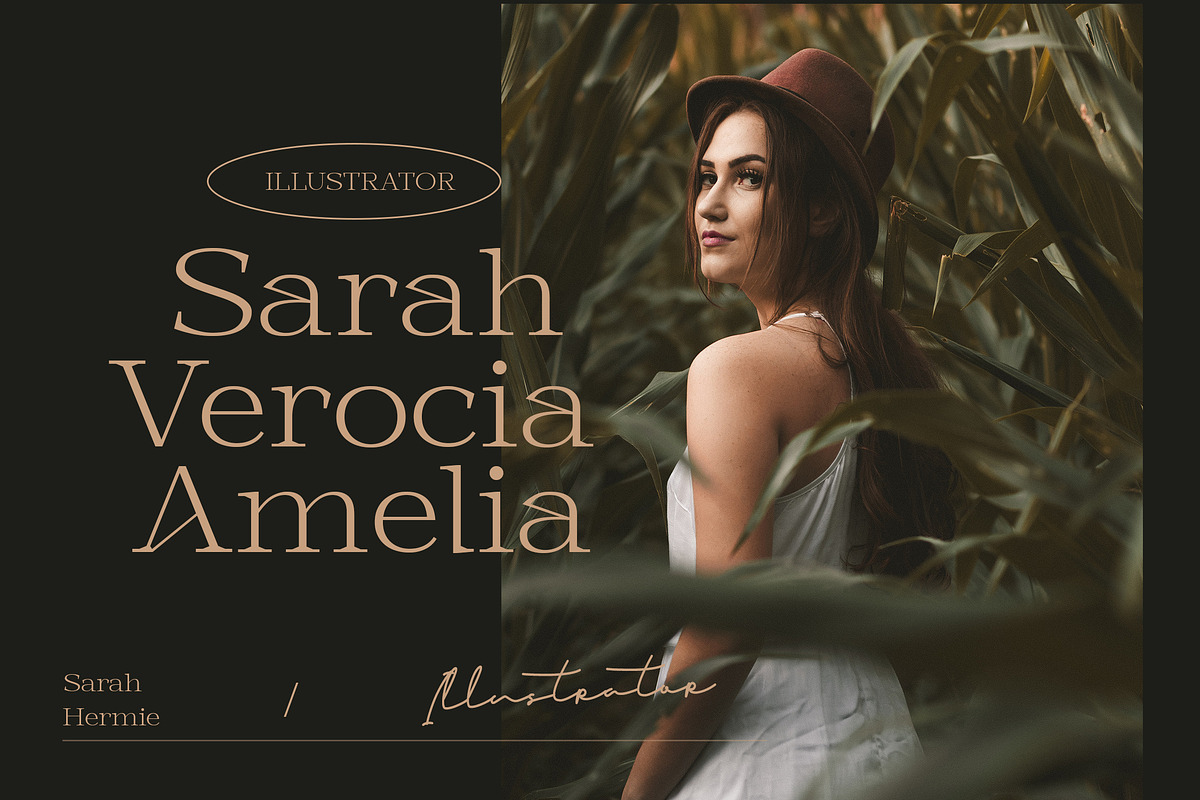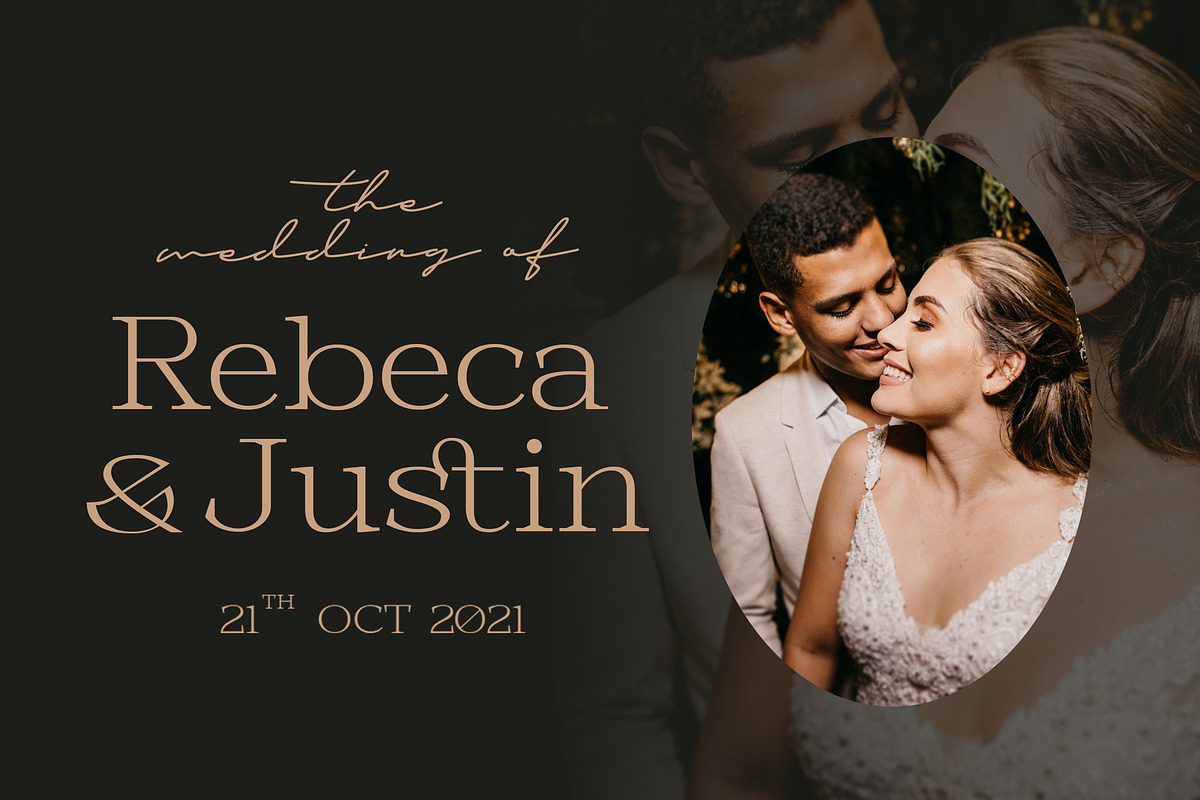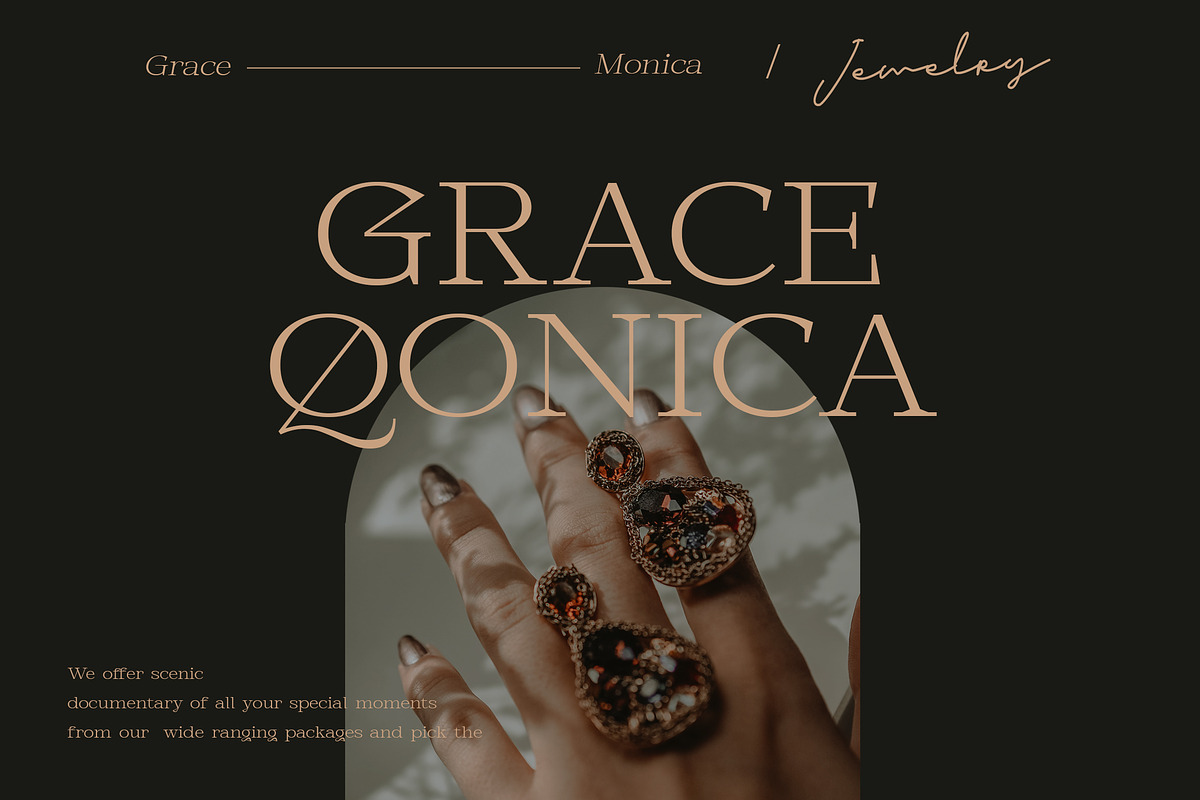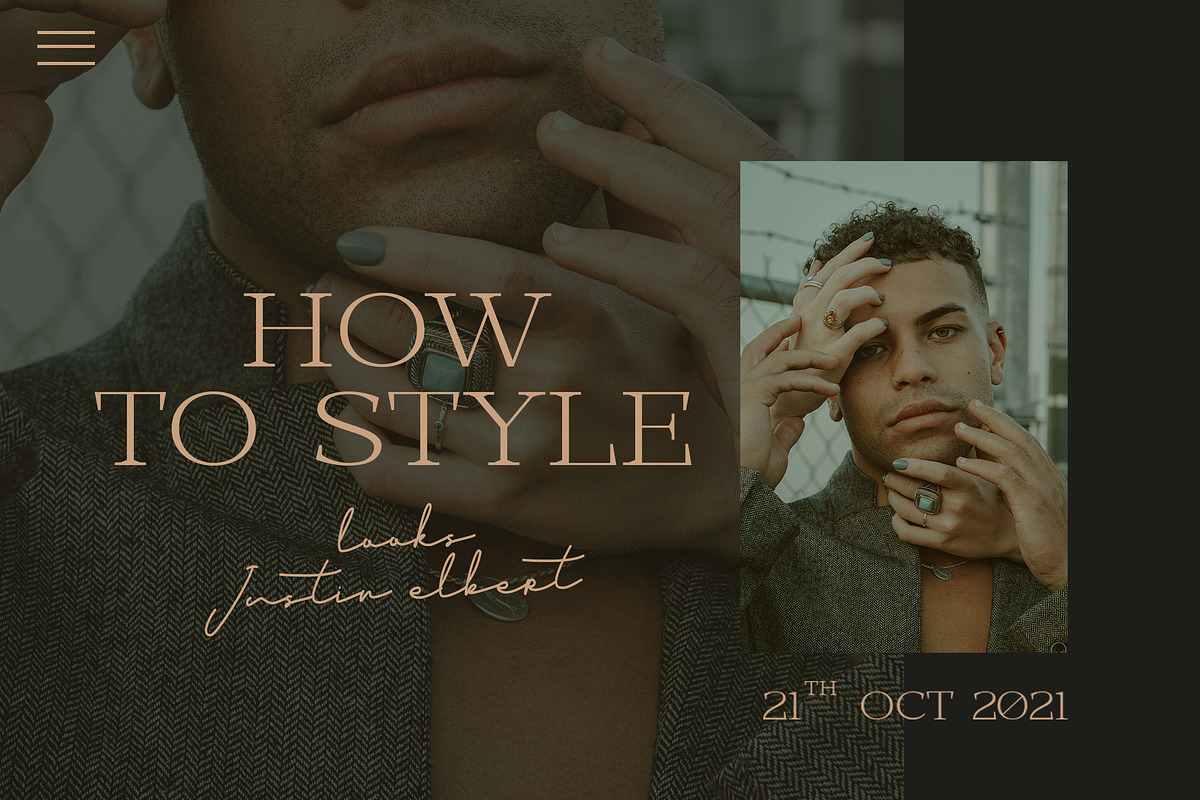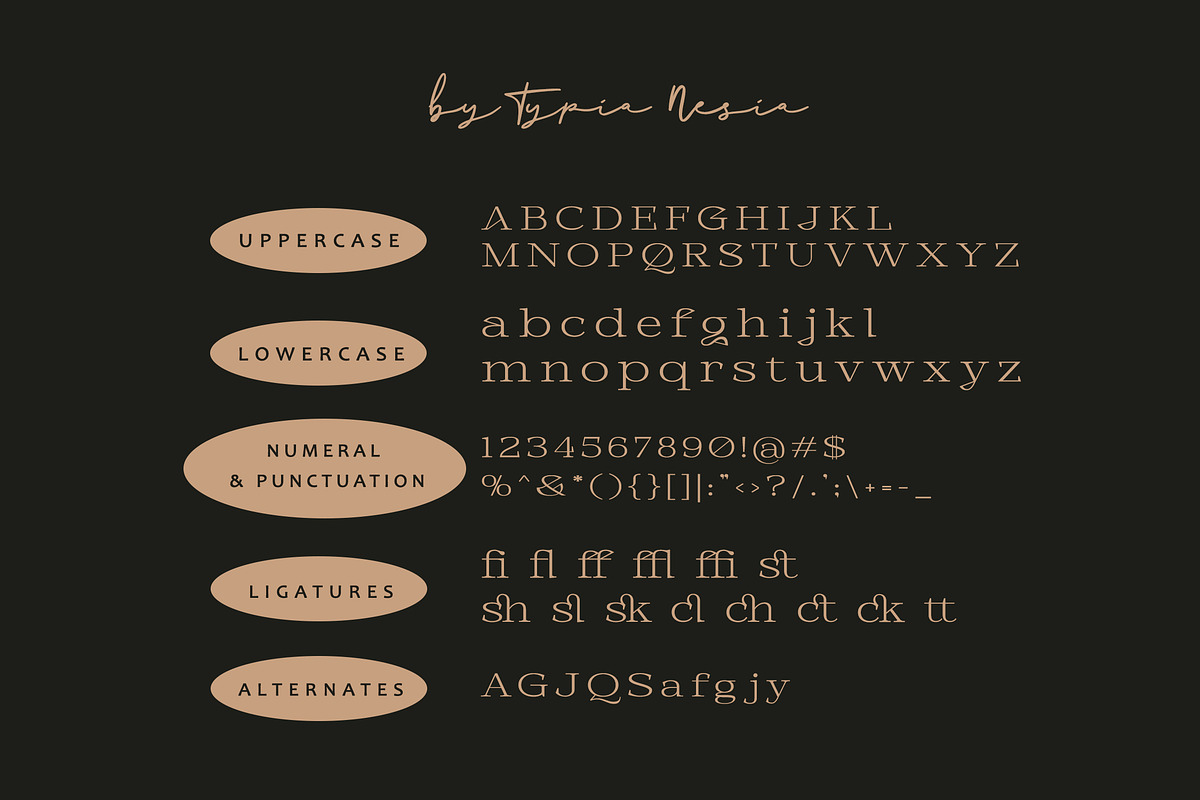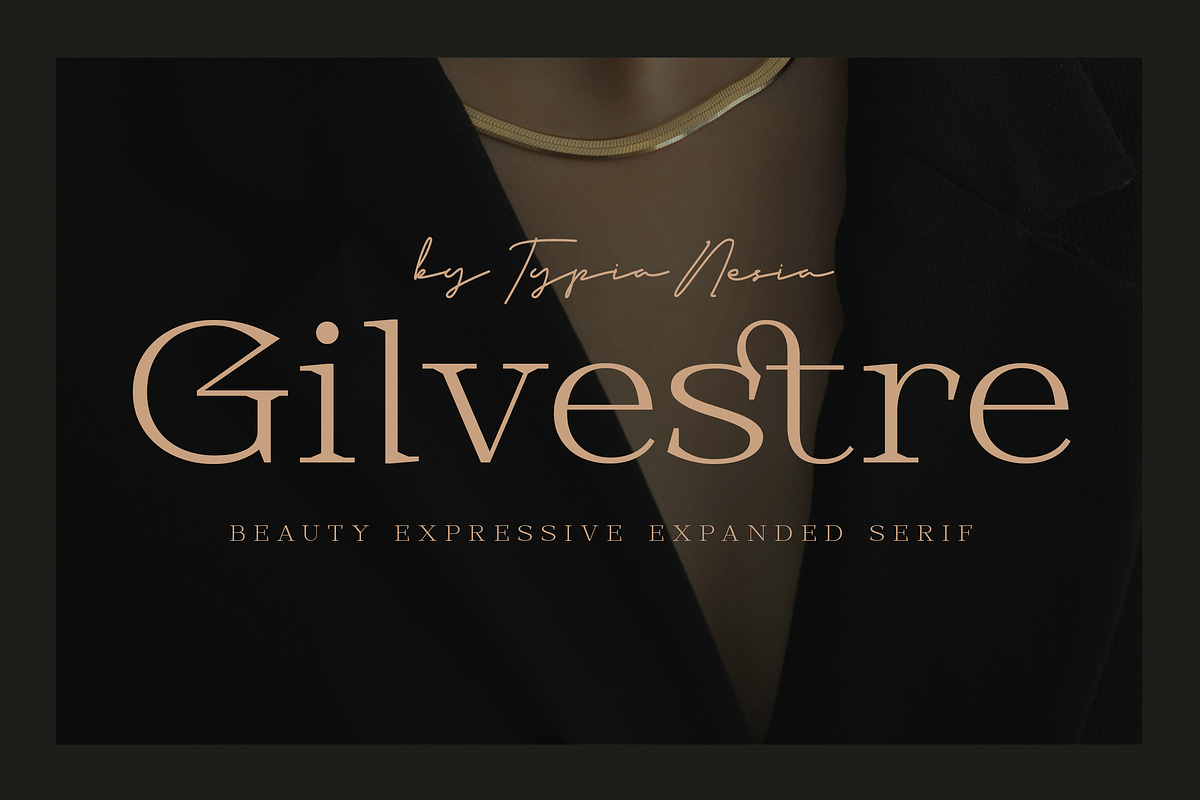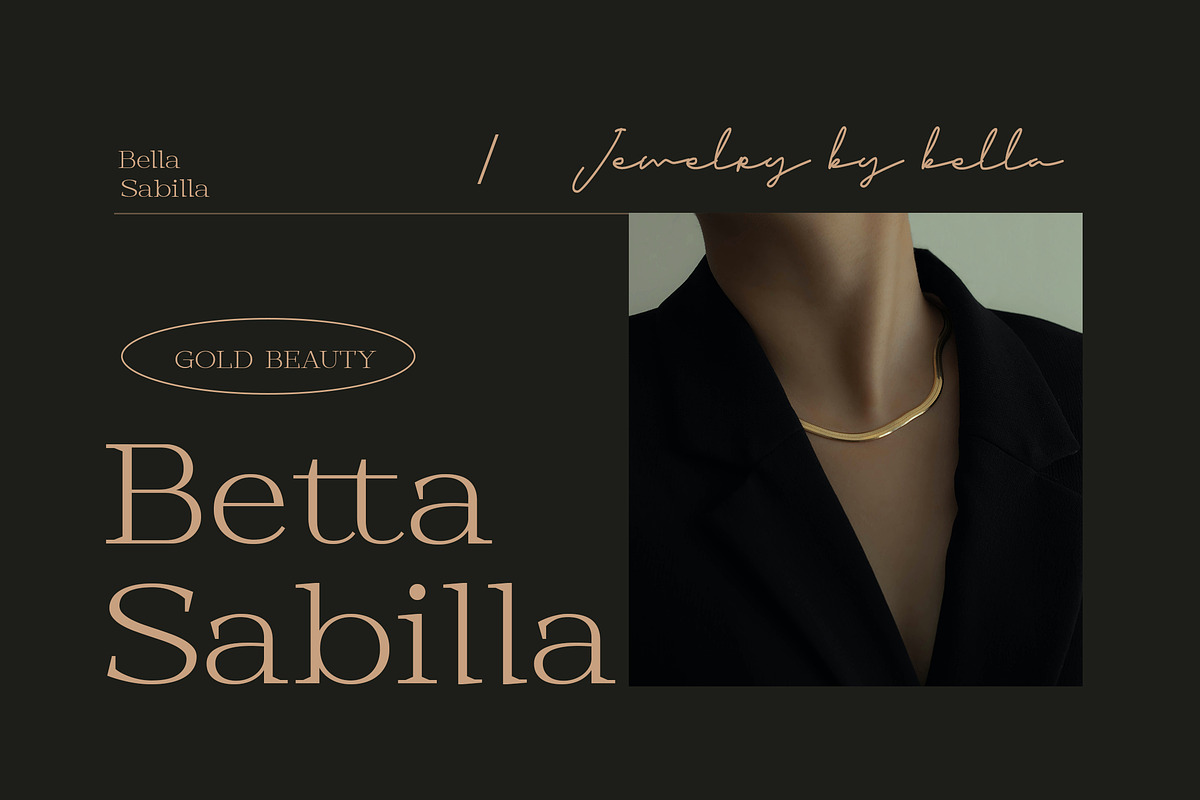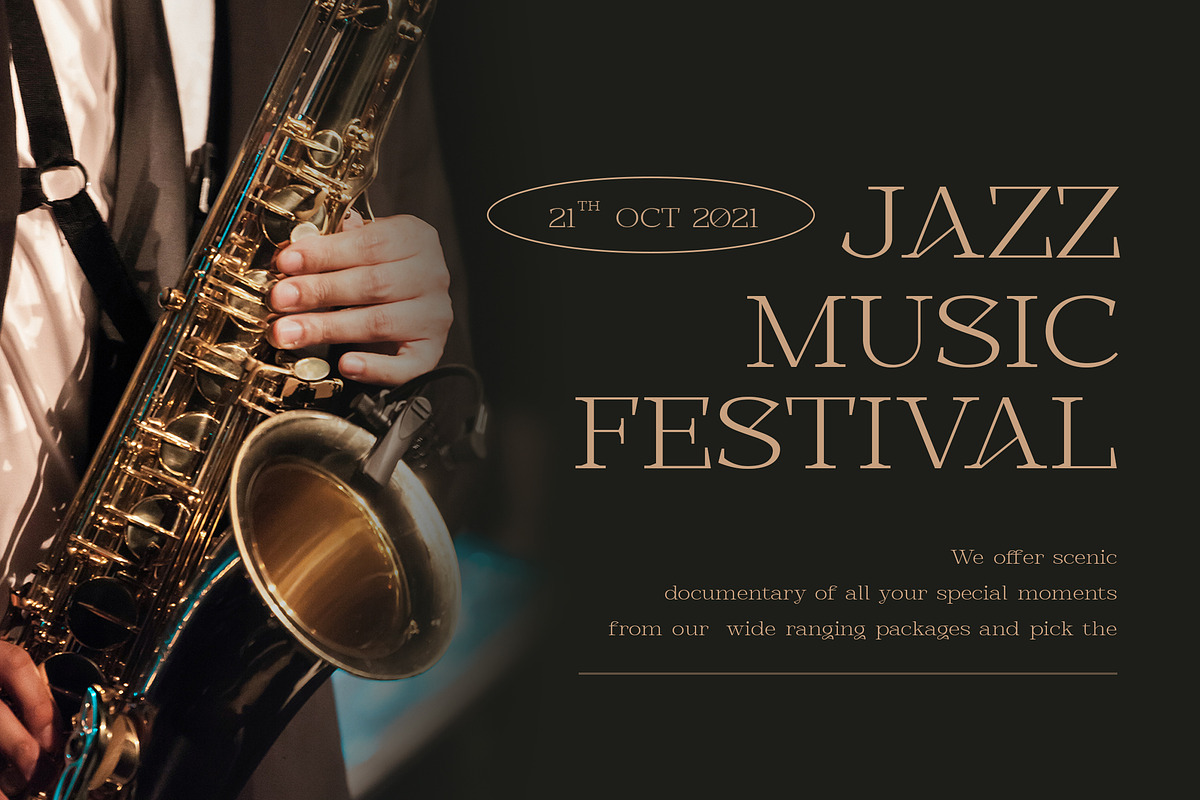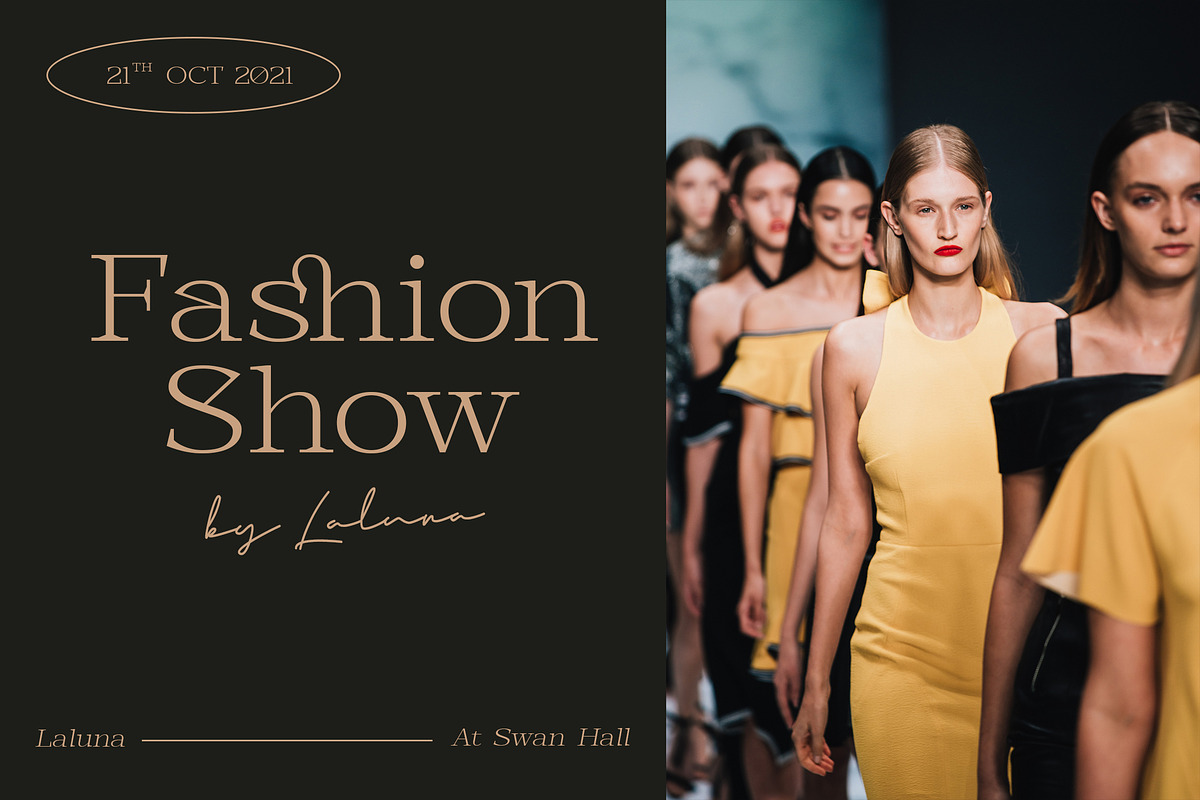
Gilvestre Serif
Gilvestre - Beauty Luxury Fancy Modern Expanded Serif - Royal Classy Display Font
Gilvestre Extended Elegant Serif font is perfect for your up coming projects. Such as luxury logo and branding, classy editorial design, woman magazine, cosmetic brand, fashion promotional, art gallery branding, museum, historical of architectural, boutique branding, stationery design, blog design, modern advertising design, card invitation, art quote, home decor, book/cover title, special events and any more.